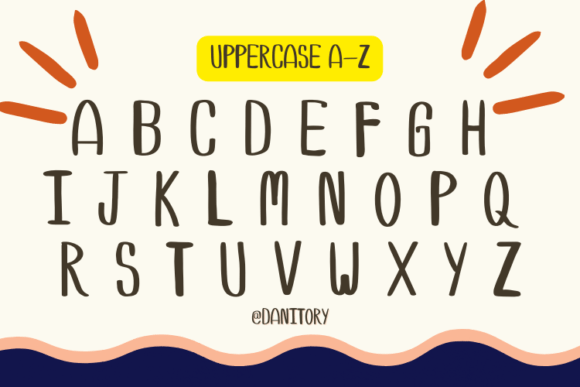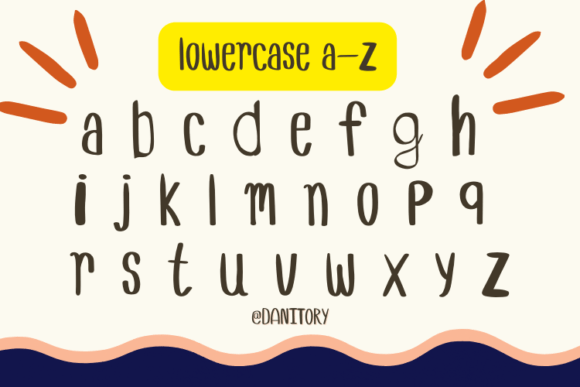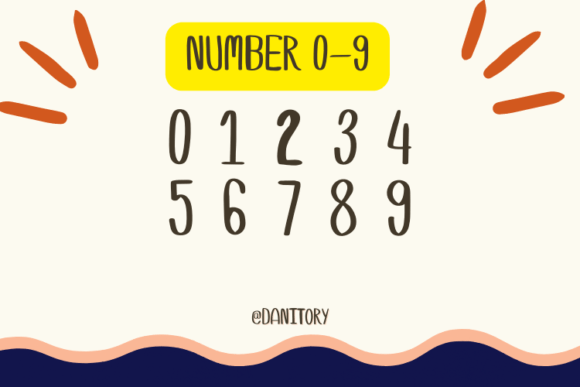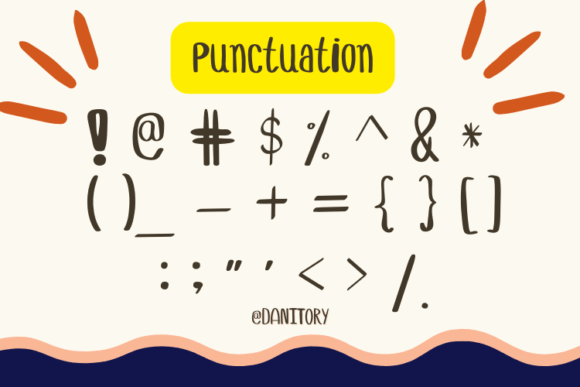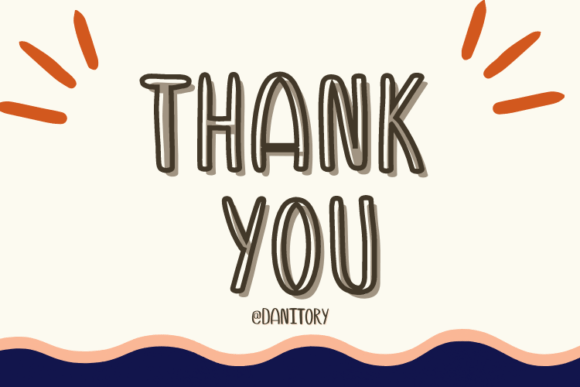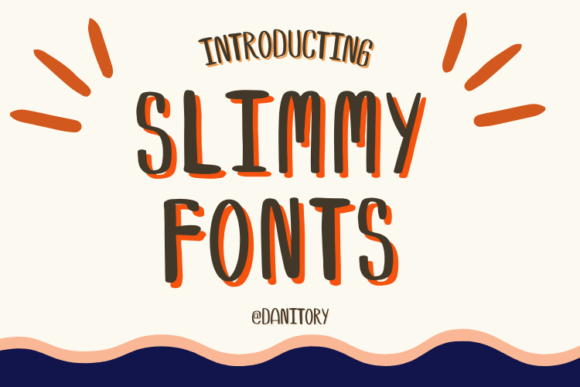
Slimmy Font
The Slimmy Font Download is a cute and slim handwritten typeface designed with natural balance and simplicity in mind. With its playful yet elegant character, Slimmy adapts beautifully to a wide range of creative projects. Whether used for t-shirts, posters, invitations, or digital content, this handwritten script adds charm and style to every design.
A Slim Handwritten Script with Natural Beauty
Slimmy combines a thin, modern handwritten style with a joyful personality. Unlike heavy or overly complex fonts, this Slimmy script font emphasizes clarity, minimalism, and creativity. As a result, it is perfect for projects where elegance and playfulness must come together.
Personal projects and stationery benefit greatly from handwritten details. The Slimmy Font is perfect for wedding invitations, greeting cards, thank you notes, and seasonal announcements. Moreover, its slim handwritten strokes give every card a heartfelt and graceful look.
Branding and Apparel Design with Slimmy Font
Typography sets the tone of apparel and merchandise. The Slimmy handwritten font works beautifully for t-shirt designs, tote bags, mugs, and product packaging. In addition, its slim yet stylish character ensures brands look approachable and modern.
Posters, Titles, and Creative Displays
The Slimmy Font Download is also an excellent choice for posters, banners, and creative headlines. Therefore, it is versatile enough for both small-scale designs and large displays, maintaining readability and charm in all contexts.
In today’s digital world, engaging fonts can transform visual storytelling. The Slimmy typeface integrates seamlessly with Instagram posts, YouTube thumbnails, Pinterest graphics, and blog headers. Its slim, balanced strokes make digital designs look polished and professional.
Why Designers Choose Slimmy Typeface
Designers love fonts that provide creativity without losing usability. Many slim handwritten scripts lack personality, but the Slimmy handwritten script keeps its playful elegance while staying highly readable. This makes it an excellent option for professionals and hobbyists alike.
Add Slim and Playful Elegance to Your Work Today